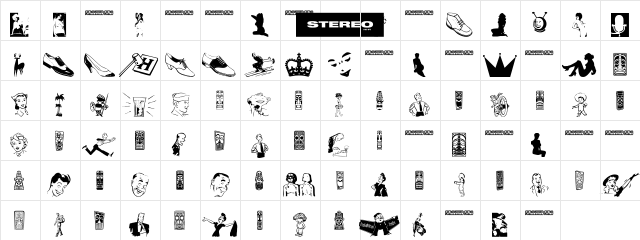
Return of the Retrobats Regular
Design Context for Return of the Retrobats Typeface
Return of the Retrobats wears its vintage influences proudly, with letterforms that recall mid-century signage, classic packaging, and nostalgia-driven design.
Font Pairing: Combine Return of the Retrobats with a simple slab or neutral sans — period-accurate companions reinforce the vintage feel without competing for attention.
Pro Tip: Lean into Return of the Retrobats's period character by pairing it with aged paper textures, muted colour palettes, and vintage illustration styles.